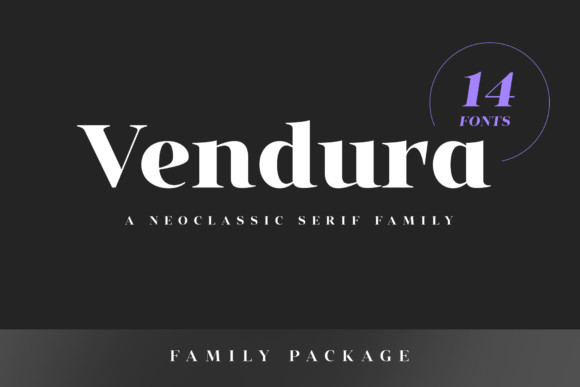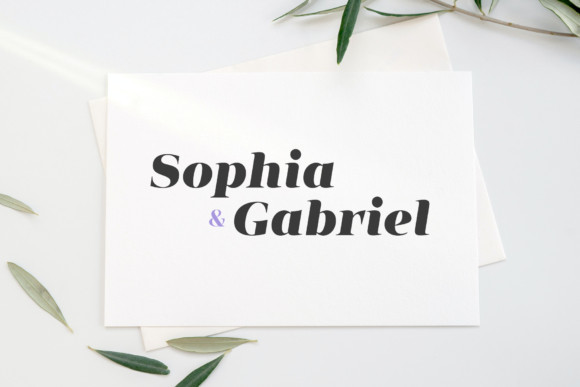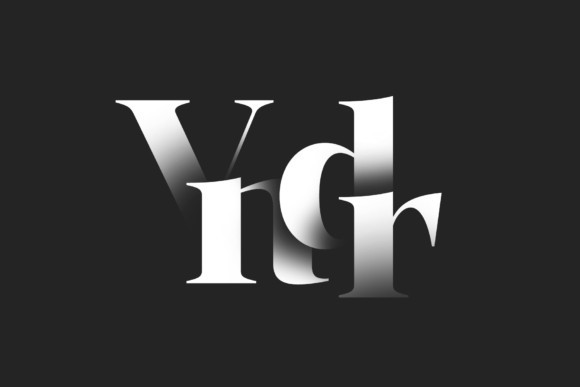
Vendura Font
Vendura is a lovely, elegant and bold serif font. It is defined by smooth curves and is perfect for fashion branding or editorial designs. Add it confidently to your projects, and you will love the results.